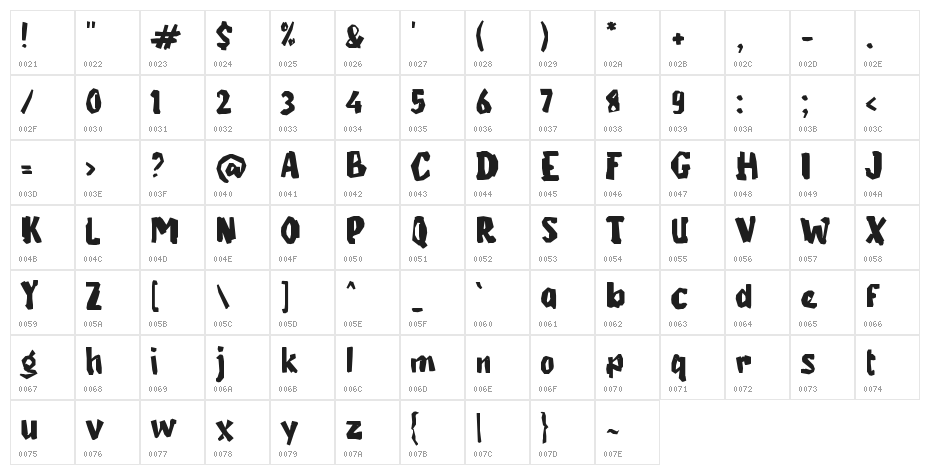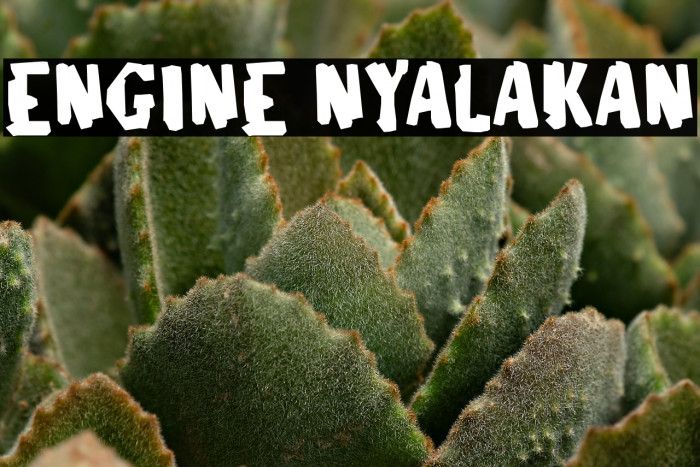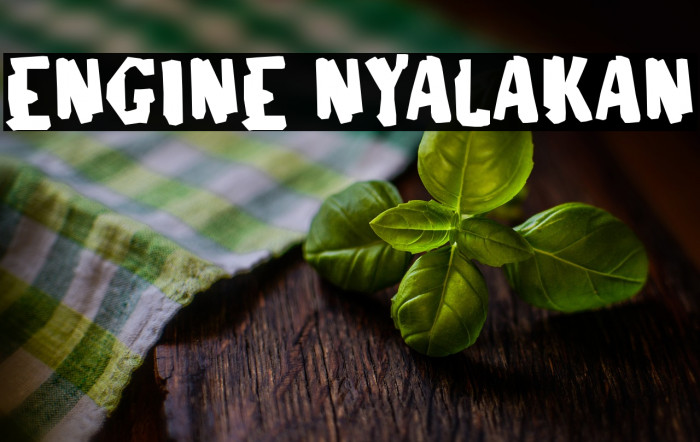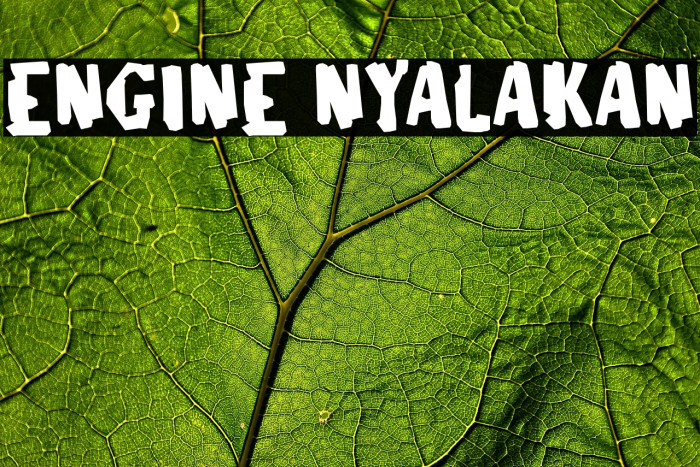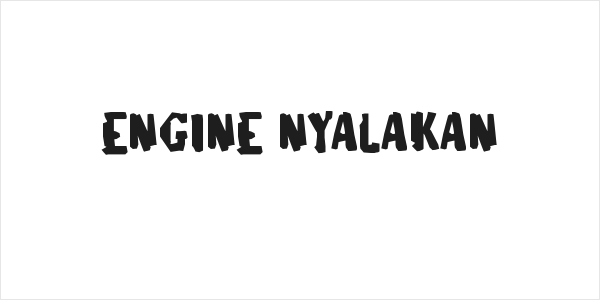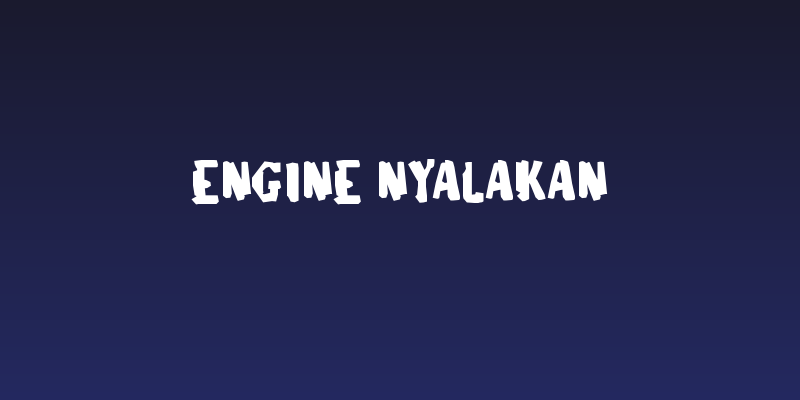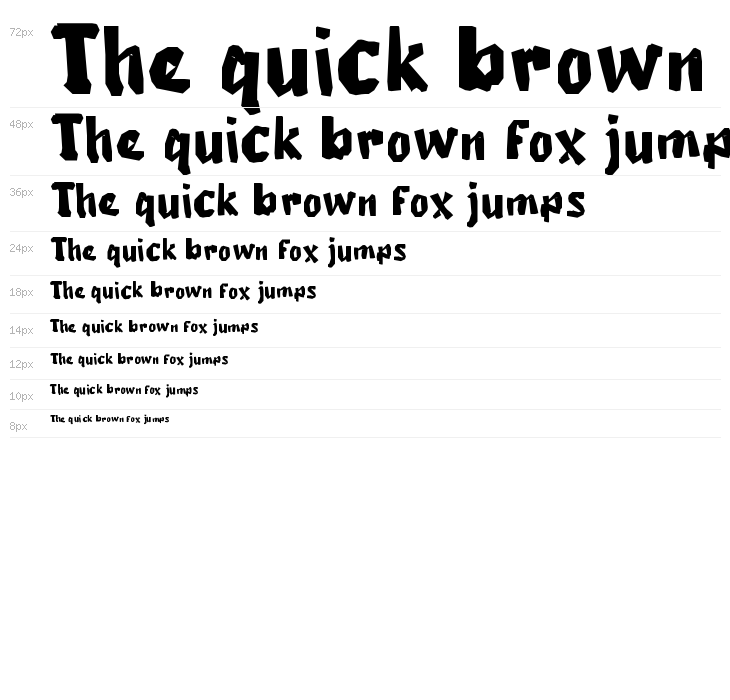
ENGINE NYALAKAN Font
ENGINE NYALAKAN Description
This font features a bold and rugged design with a distinctly hand-crafted appearance. The characters exhibit irregular edges and a slightly distressed look, giving them a raw and energetic feel. The uppercase and lowercase letters maintain a consistent style, with angular shapes and a sense of movement. The numbers and special characters follow the same aesthetic, ensuring a cohesive overall appearance. This font's unique style makes it stand out, ideal for projects that require a strong, impactful visual presence.
| Proposed Projects | Ideal for posters, album covers, branding for edgy or alternative products, and any design needing a bold, impactful statement. |